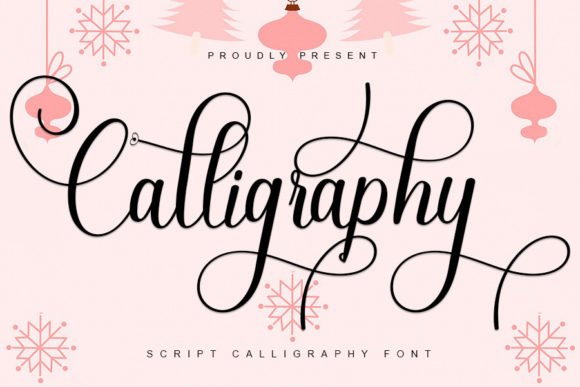
The Art of Elegant Expression: Unveiling the Beauty of Calligraphy Font
Do you remember that moment when you finally found the perfect pen and paper to express your thoughts and emotions? The way the ink flowed onto the page, creating a unique and beautiful handwriting that told a story of its own? That’s the magic of calligraphy, and with the right font, you can capture that essence and bring it to life in your designs.
The Calligraphy Font is a beautifully crafted handwritten font that adds a touch of elegance and sophistication to any design. Whether you’re creating wedding invitations, thank you cards, or logos, this font is the perfect choice to make your design stand out. With its PUA encoding, you can access all the glyphs and swashes with ease, giving you the freedom to experiment and create unique designs that reflect your personality.
Key Features of Calligraphy Font
- Unique Characteristics: Features intricate, hand-crafted letterforms and flourishes, adding an elegant and sophisticated touch to any design project.
Calligraphy Font Review
Overall, I think the Calligraphy Font is a beautiful and elegant choice for any design project. ✨ The subtle flourishes and connecting strokes give it a sophisticated feel that’s perfect for invitations, wedding stationery, or any other formal occasion.
- ✨ The font’s high level of detail and texture creates a sense of depth and visual interest.
- ✨ The elegant, cursive design is perfect for adding a touch of sophistication to any design project.
- ✨ The font is highly customizable, allowing designers to adjust the spacing and style to suit their needs.
- ⚠️ The font can be quite dense, making it difficult to read at small font sizes.
- ⚠️ The intricate details can make the font difficult to use for text-heavy designs.
- ⚠️ Some characters may not be as legible as others, particularly at smaller font sizes.
In conclusion, while the Calligraphy Font has some limitations, its beauty and elegance make it a great choice for designers who want to add a touch of sophistication to their projects. With some careful planning and consideration, this font can be a valuable addition to any design toolkit.